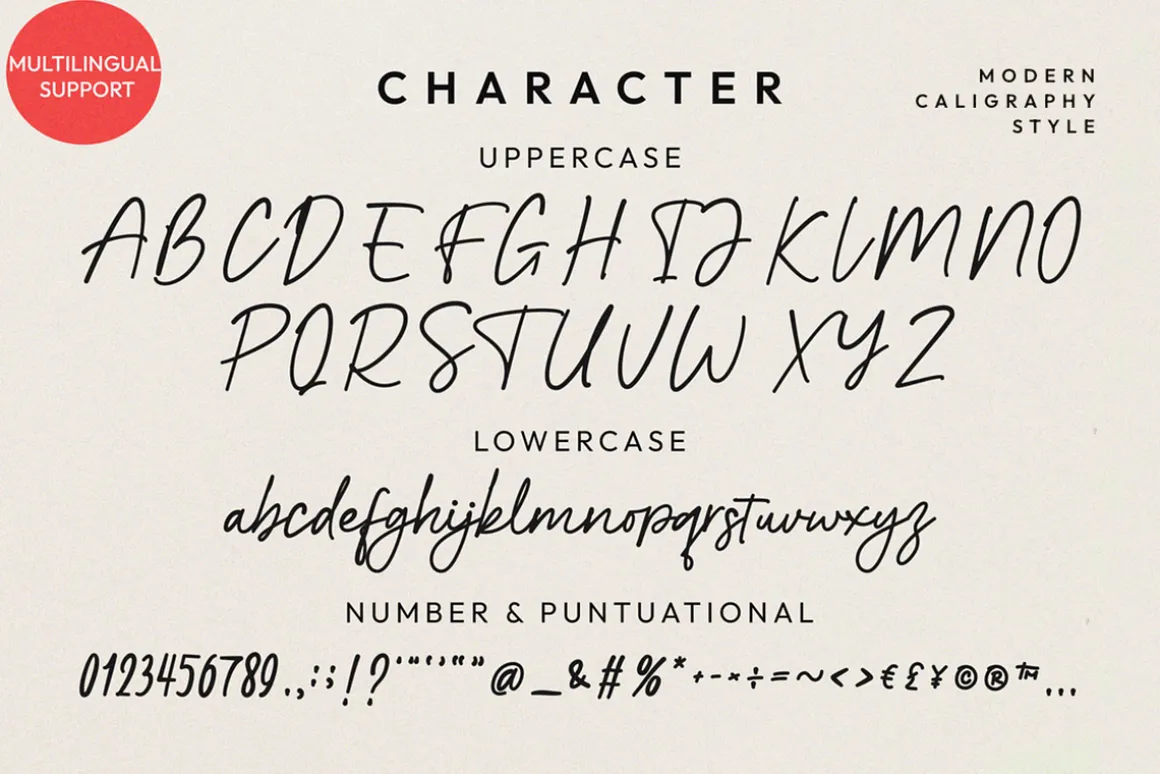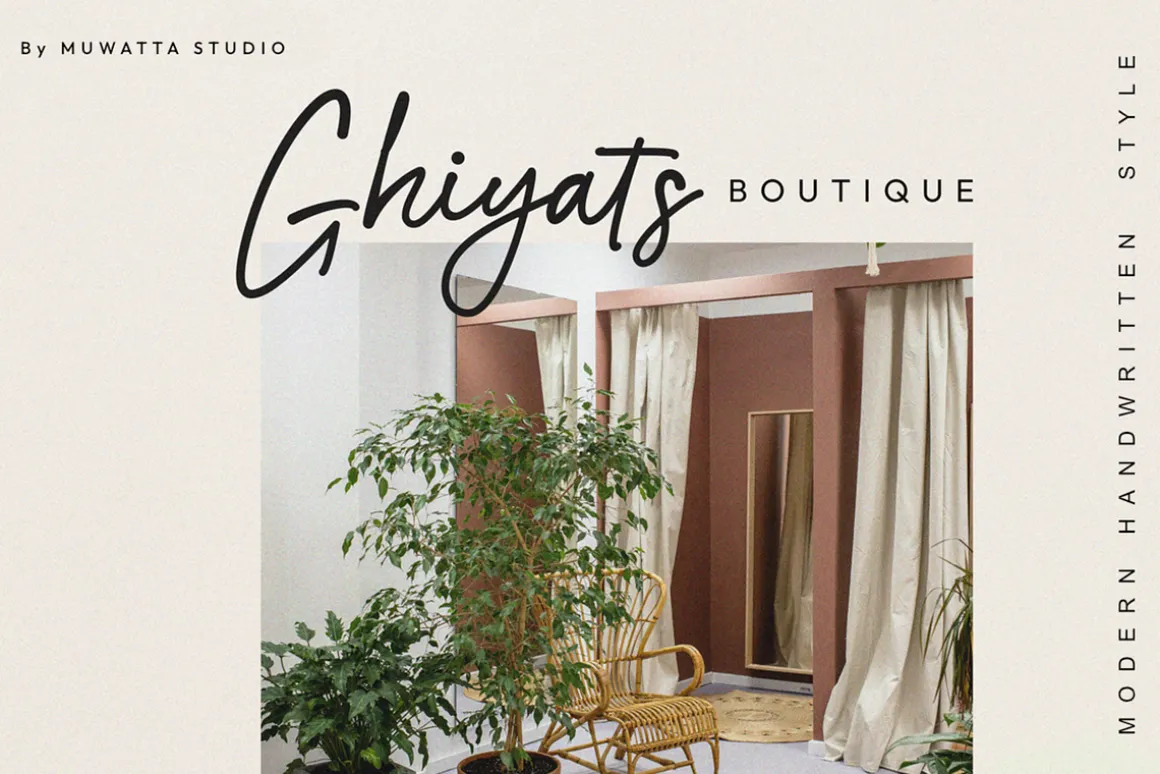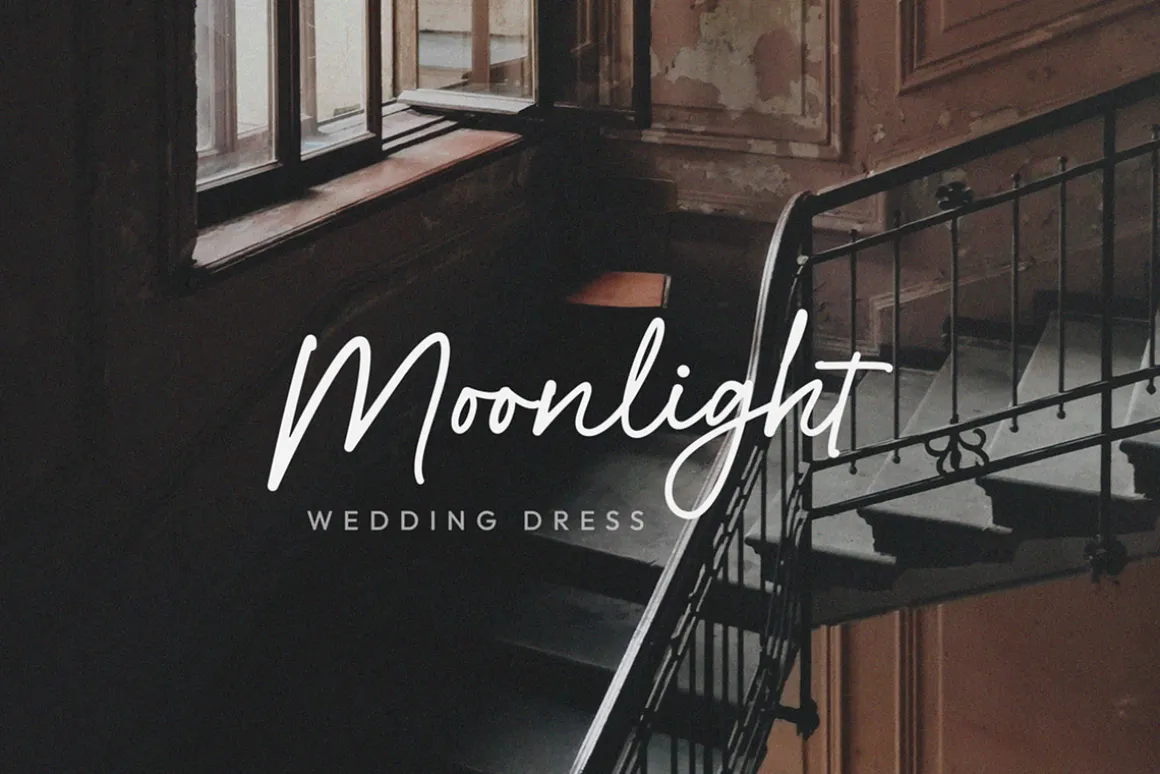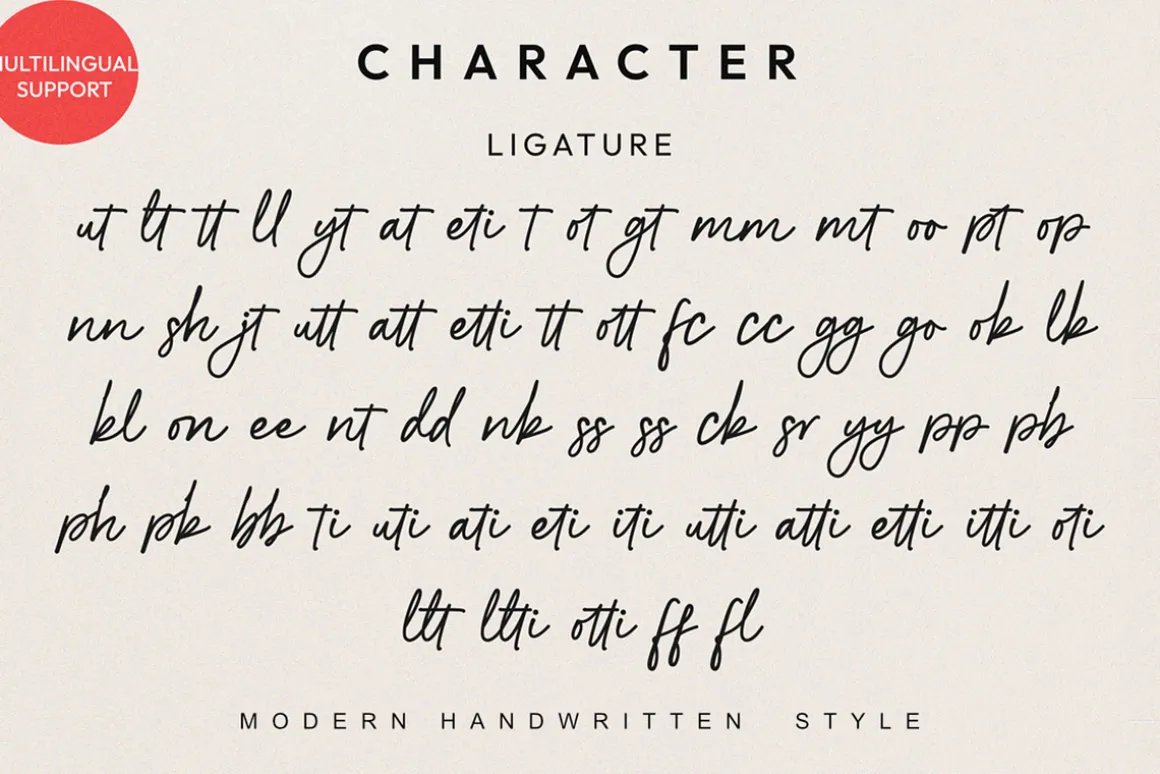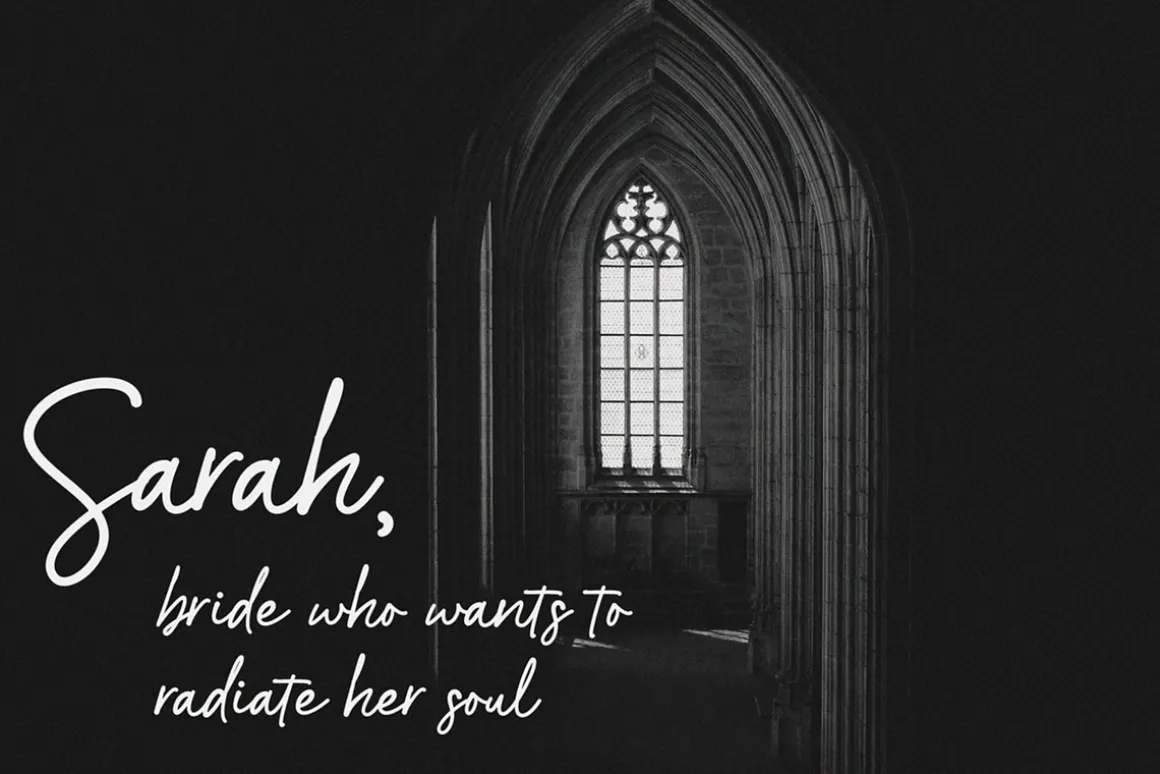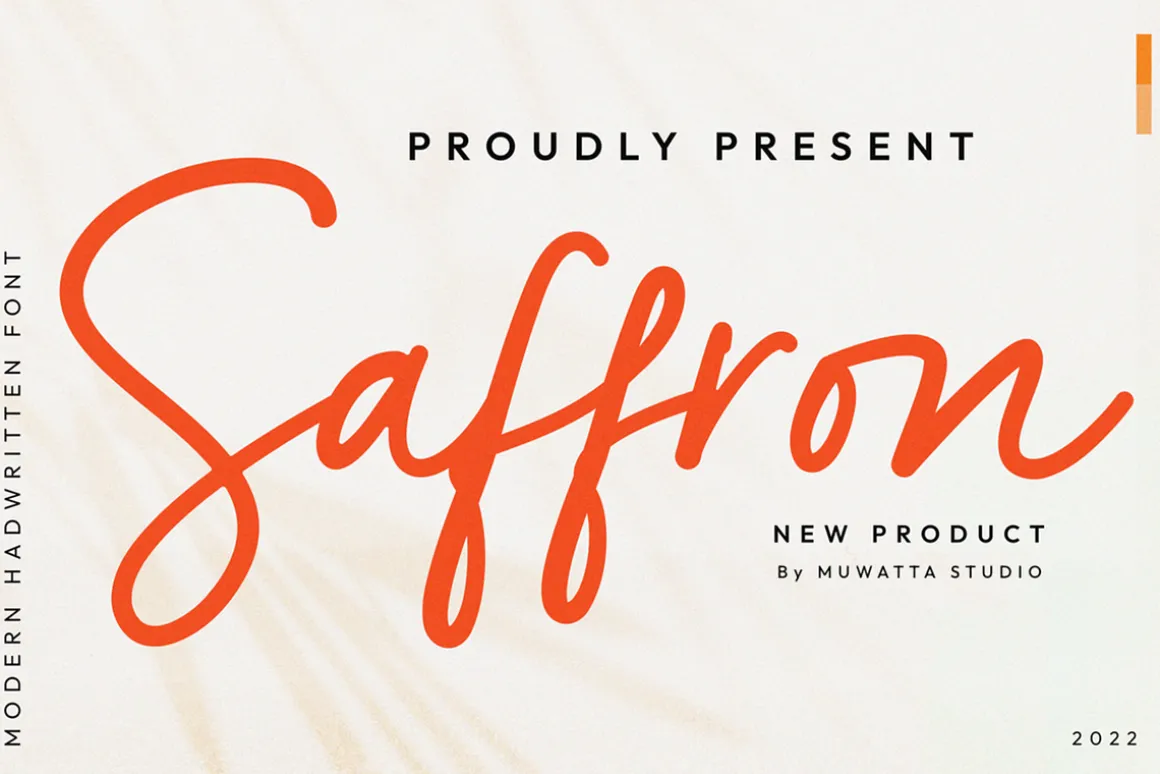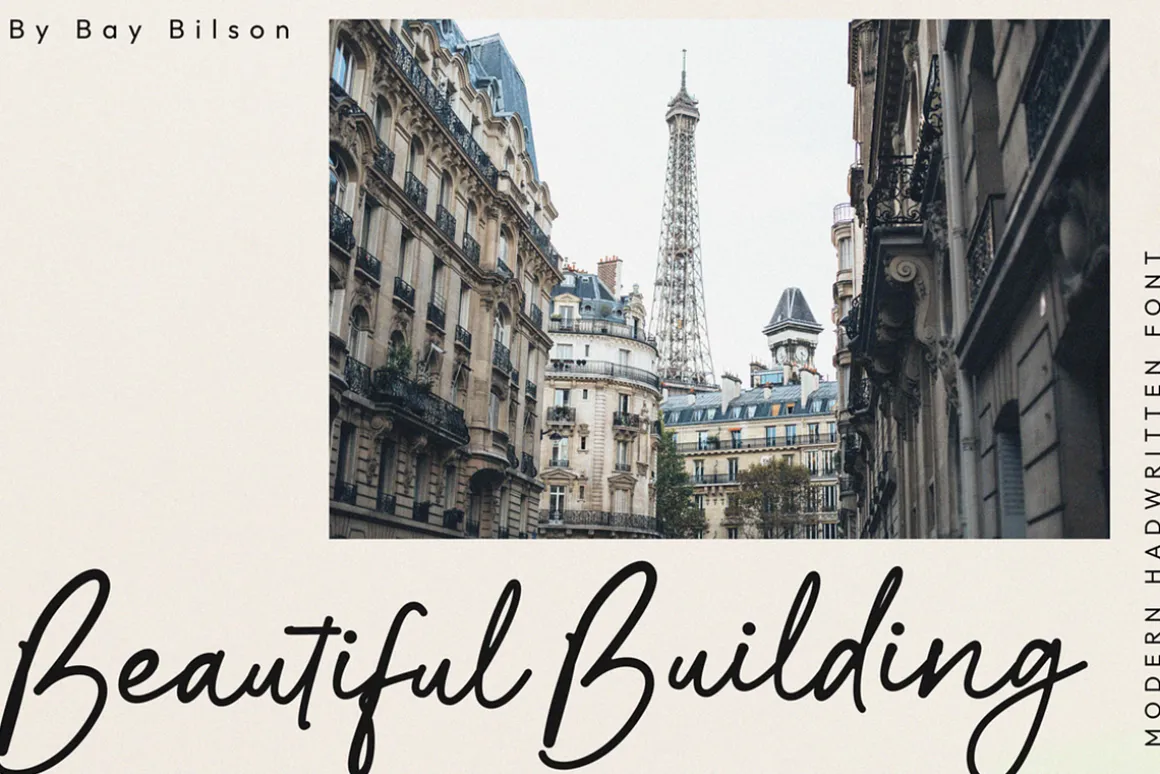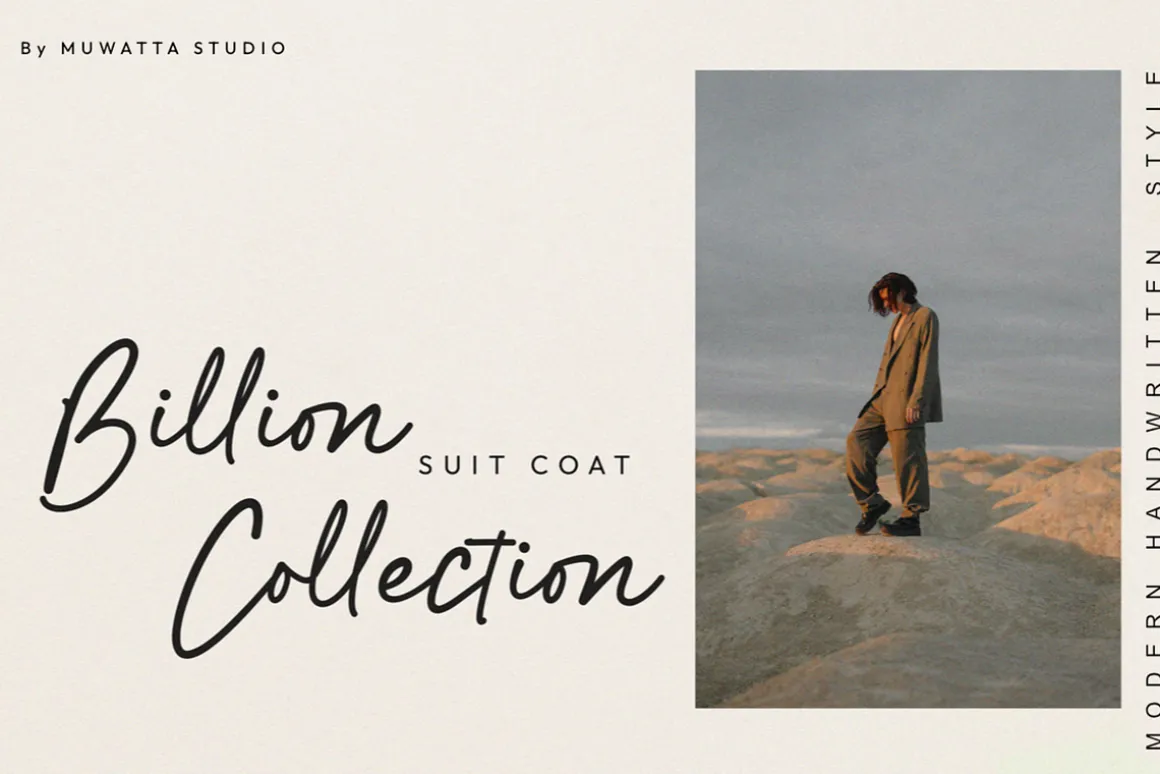
Made with bold and daring nuances, it allows users to feel tough. This font issuitable for brand logos, invitations, Instagram content, marketing content, web design, posters, and other types of designs.
-Full alphabet with Uppercase and Lowercase A-Z for script
-Numbers for all fonts
-Punctuation and symbols for all fonts
-Ligature Lowercase script
-Multilingual support all fonts